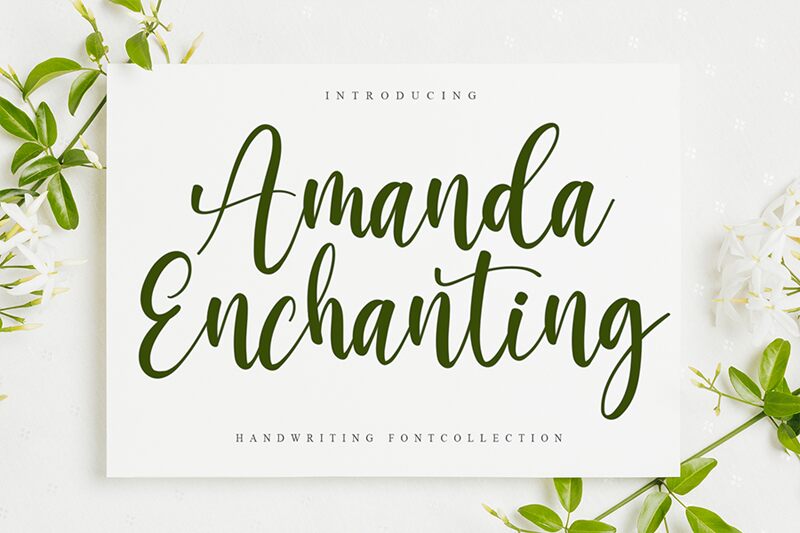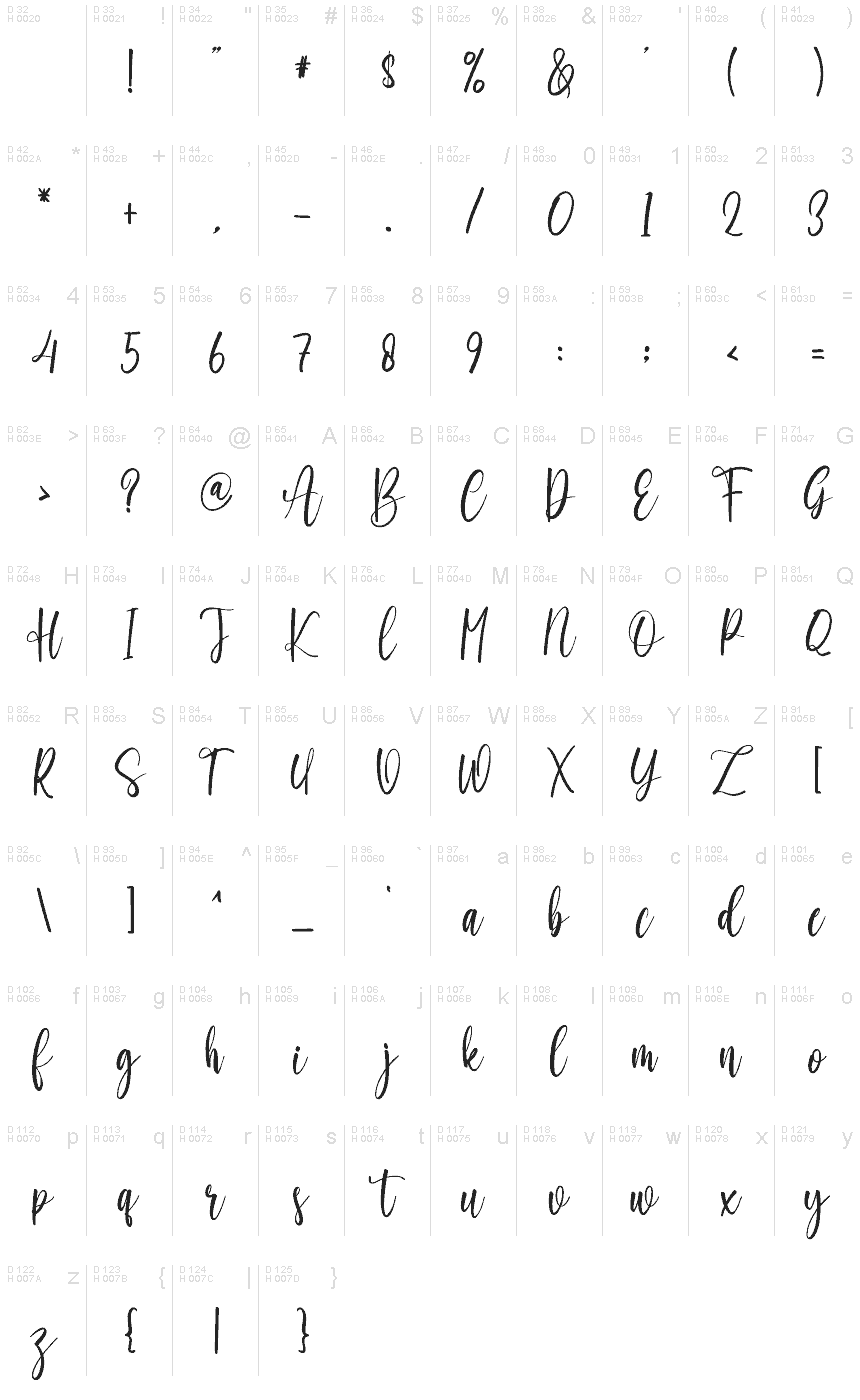
Amanda Enchanting
Amanda Enchanting font by Creative Homework is a fashionable, graceful, and elegant handwritten font. It features a classy calligraphic influence while still managing to feel contemporary and fresh. This versatility allows it to embrace a wide range of creative ideas where refined expression is key.
Use Amanda Enchanting for letterheads, titles, stationery design, posters, book covers, art galleries exhibitions branding and promotions. Other use cases include menu design for high-end restaurants or invitations for luxury boutiques or launch events.